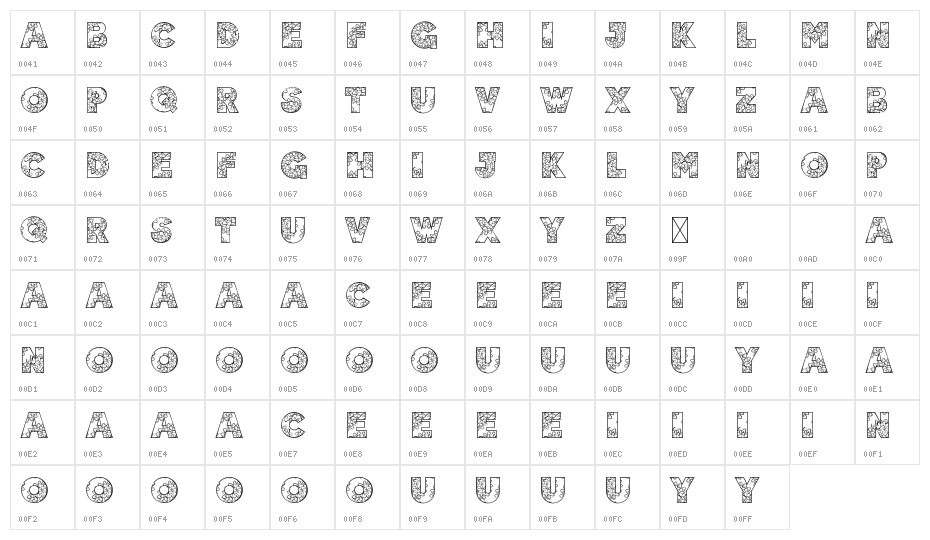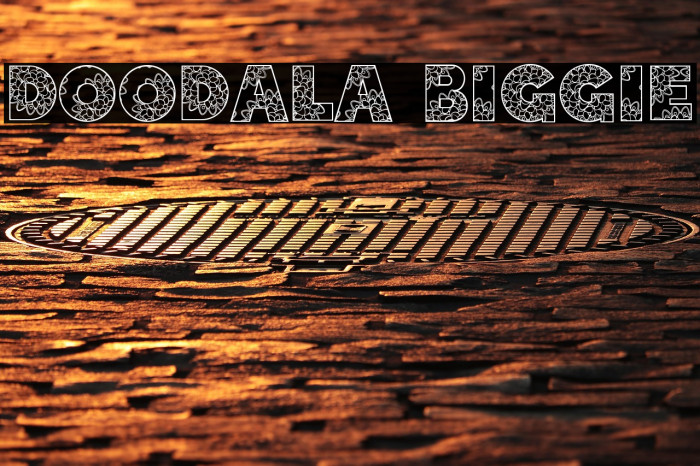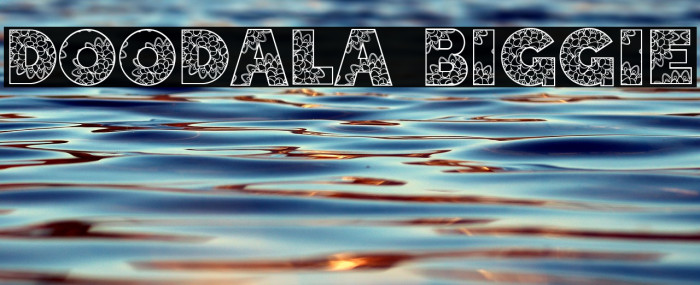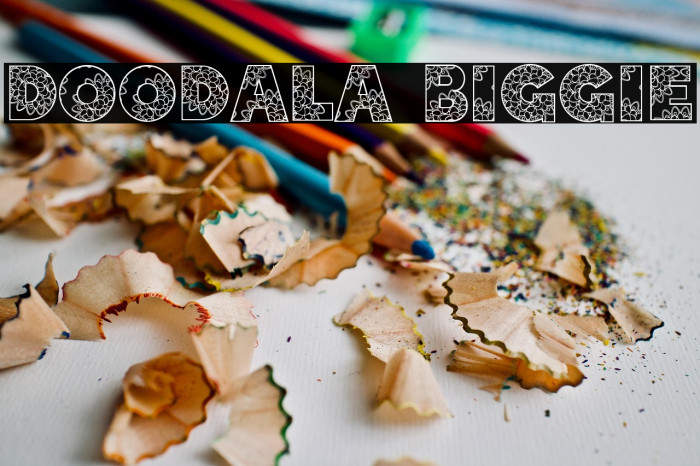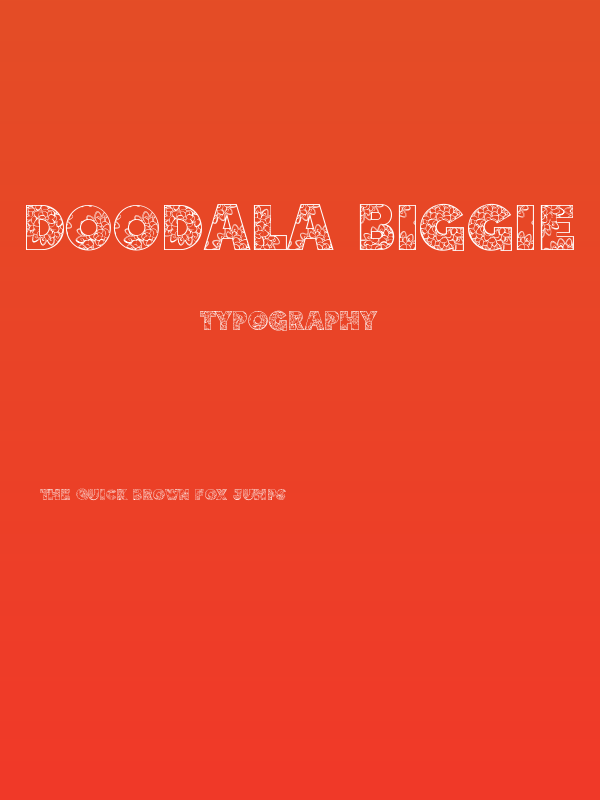
Doodala Biggie Font
Doodala Biggie Description
This font features a playful and intricate design with each letter filled with doodle-like patterns. The characters are bold and blocky, providing a strong visual presence. The decorative elements within each letter add a whimsical and artistic touch, making it ideal for creative and fun projects. The font maintains a consistent structure across all characters, ensuring readability while showcasing its unique style.
| Proposed Projects | Ideal for children's books, playful branding, creative posters, and artistic invitations. |